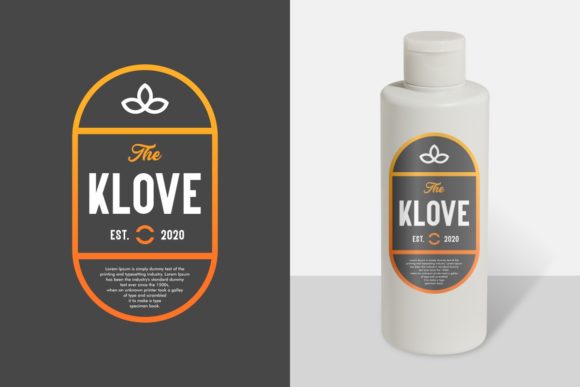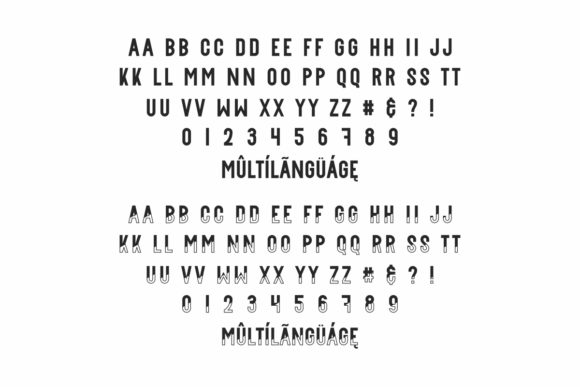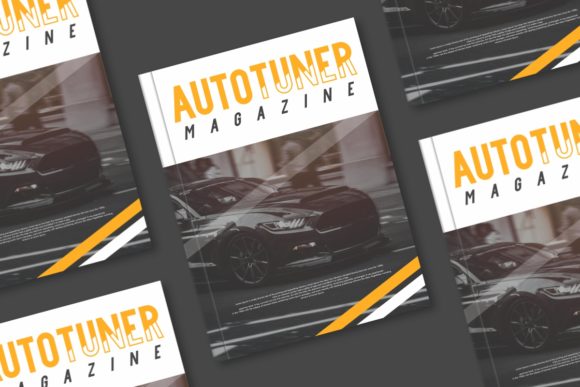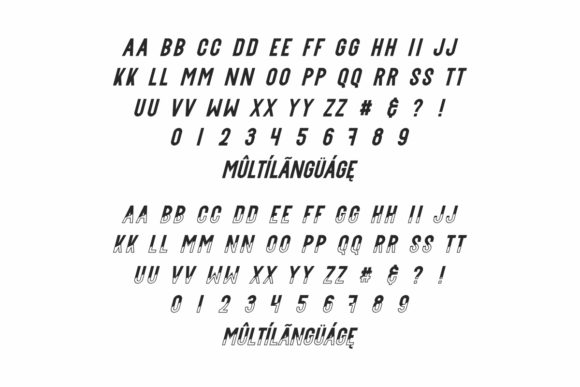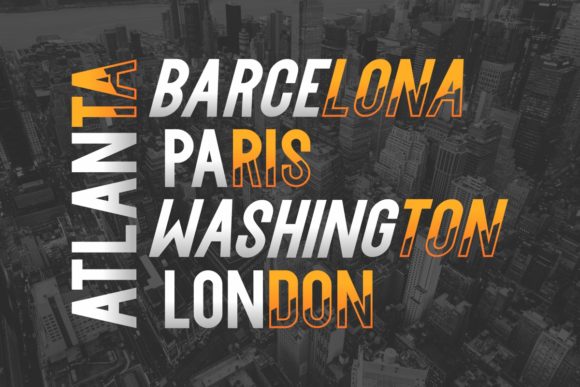
Introducing Buffalord Font: The Ultimate Display Font for Bold and Creative Projects
Are you tired of using the same old fonts for your design projects? Look no further than Buffalord Font, a bold and authentic display font that’s sure to make your creations stand out. With its unique and eye-catching style, Buffalord Font is the perfect addition to any designer’s toolkit.
What is Buffalord Font?
Buffalord Font is a bold and authentic display font designed to make a statement. Its strong and confident lines make it perfect for use in a wide range of projects, from posters and flyers to logos and branding materials. Whether you’re a professional designer or a crafty DIY enthusiast, Buffalord Font is sure to become a favorite in your collection.
Key Features of Buffalord Font
- Bold and Authentic Style: Buffalord Font features a bold and authentic style that’s sure to grab attention.
- Versatility: This font can easily be matched to an incredibly large set of projects, making it a versatile addition to your design toolkit.
- Ease of Use: Buffalord Font is easy to use and can be easily integrated into your design projects.
- Unique and Eye-Catching: The unique style of Buffalord Font makes it perfect for designers and crafters looking to add a touch of personality to their projects.
Why Choose Buffalord Font?
So why choose Buffalord Font over other display fonts on the market? Here are just a few reasons why Buffalord Font stands out:
- High-Quality Design: Buffalord Font is designed with high-quality and attention to detail, ensuring that it looks great in any project.
- Flexibility: This font can be used in a wide range of projects, from print materials to digital designs.
- Easy to Read: Despite its bold style, Buffalord Font is easy to read, making it perfect for use in headlines and titles.
How to Use Buffalord Font
- Posters and Flyers: Use Buffalord Font to create eye-catching posters and flyers that grab attention.
- Logos and Branding Materials: Add a touch of personality to your logos and branding materials with Buffalord Font.
- Social Media Graphics: Use Buffalord Font to create bold and eye-catching social media graphics.
- Signs and Banners: Buffalord Font is perfect for use in signs and banners that need to stand out.
Tips and Tricks for Using Buffalord Font
Here are a few tips and tricks for getting the most out of Buffalord Font:
- Use it Sparingly: Because Buffalord Font is so bold, it’s best to use it sparingly. Use it for headlines and titles, and a simpler font for body text.
- Experiment with Colors: Buffalord Font looks great in a variety of colors. Experiment with different colors to find the one that works best for your project.
- Pair it with Other Fonts: Buffalord Font pairs well with a variety of other fonts. Experiment with different font combinations to find the one that works best for your project.
In conclusion, Buffalord Font is a bold and authentic display font that’s perfect for designers and crafters looking to add a touch of personality to their projects. With its unique and eye-catching style, versatility, and ease of use, Buffalord Font is sure to become a favorite in your design toolkit. So why wait? Download Buffalord Font today and start creating bold and eye-catching designs that stand out!